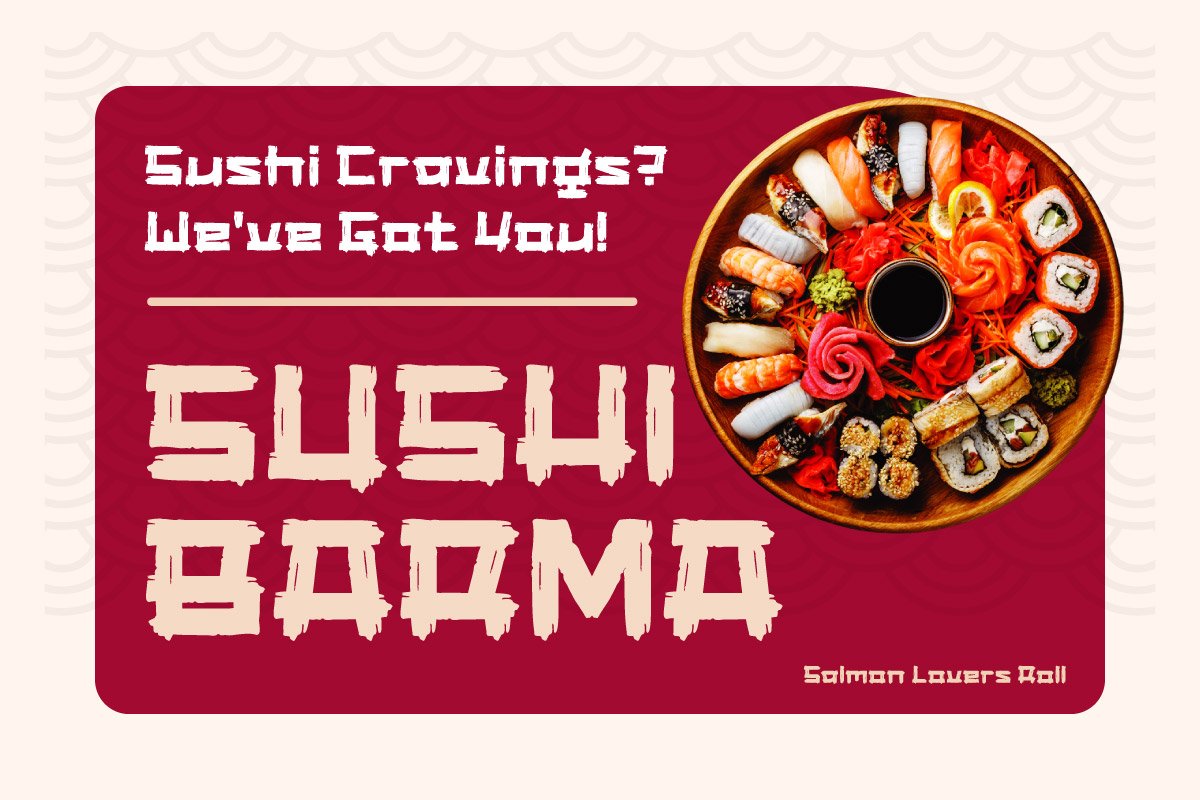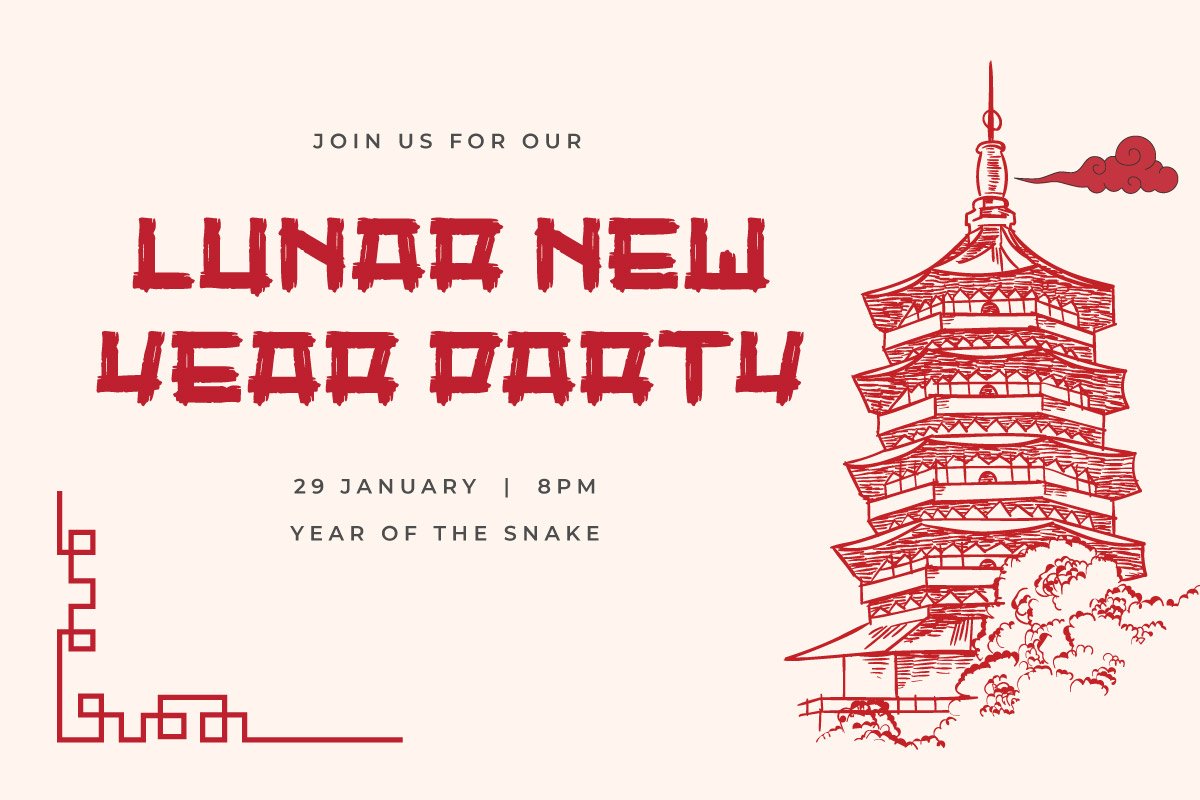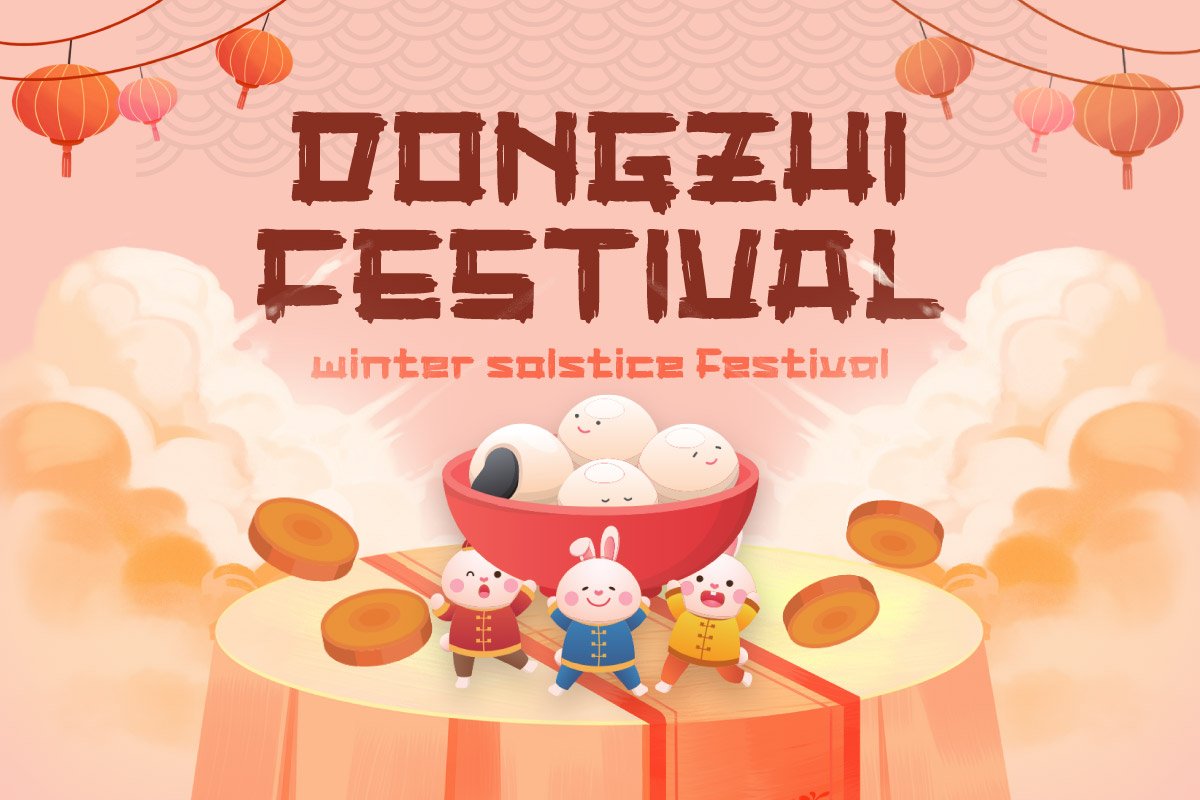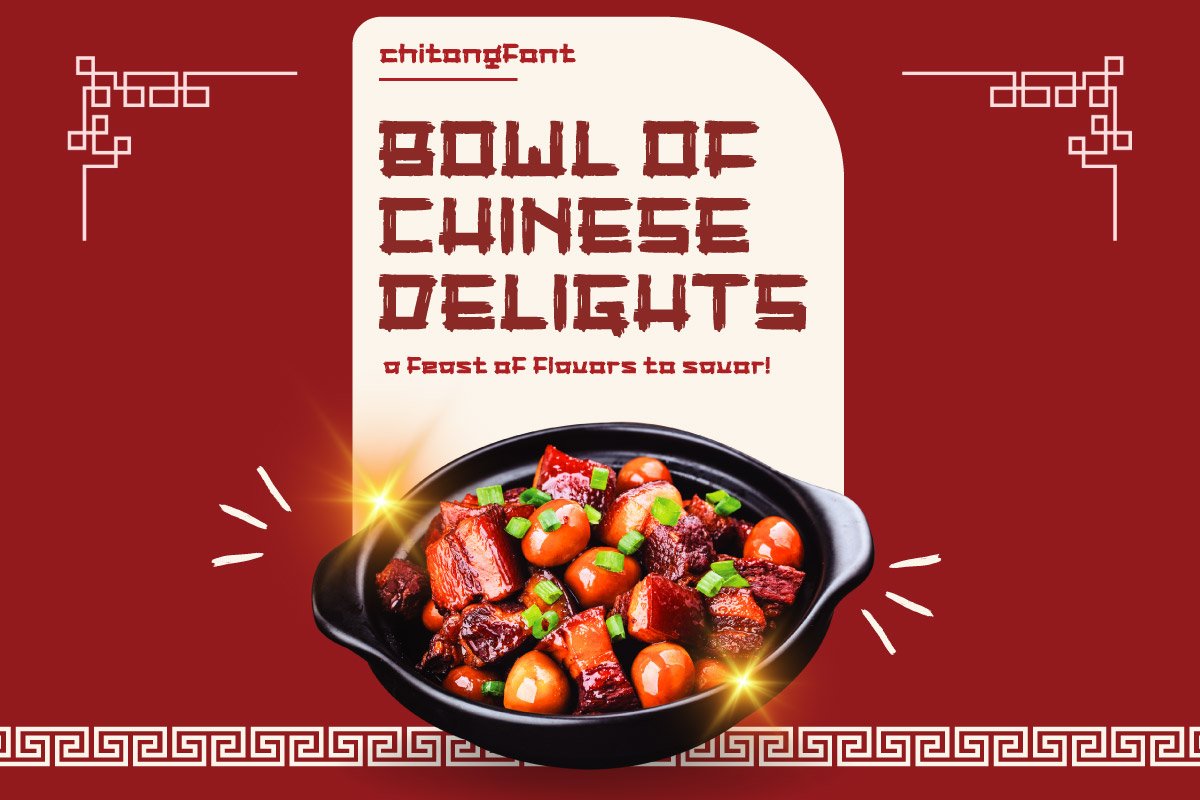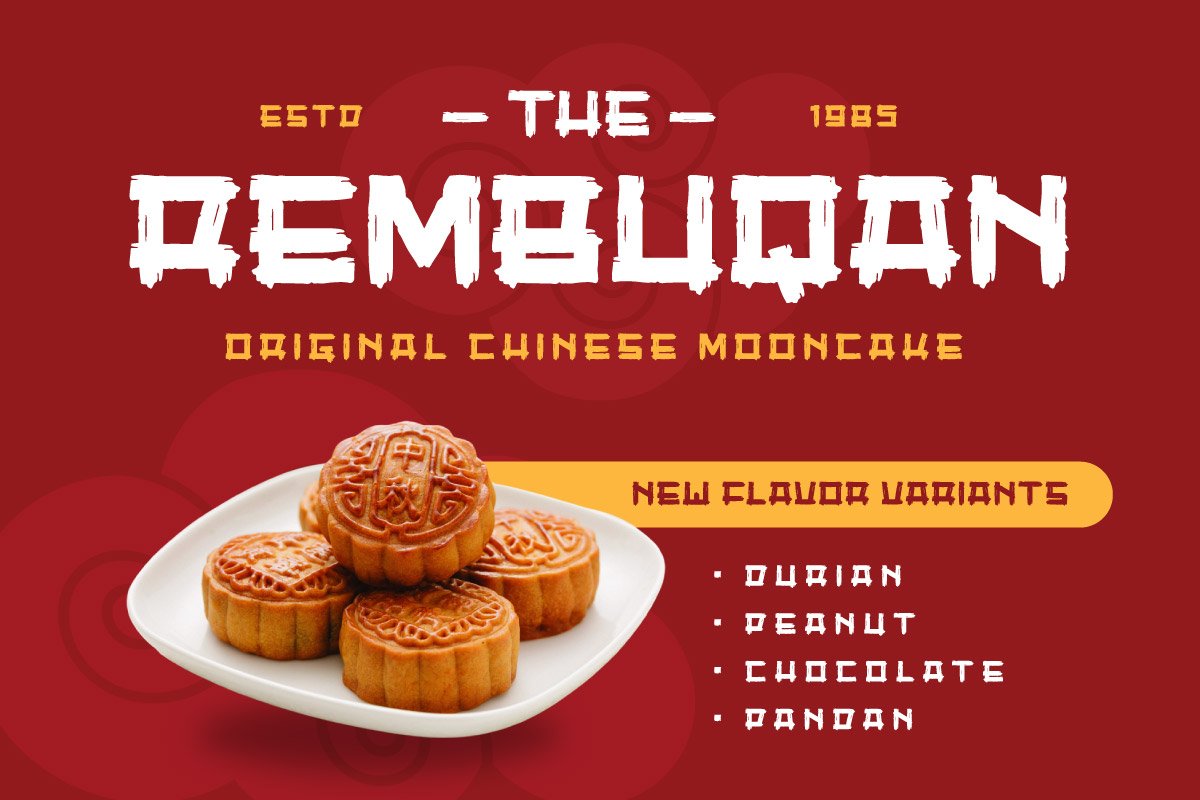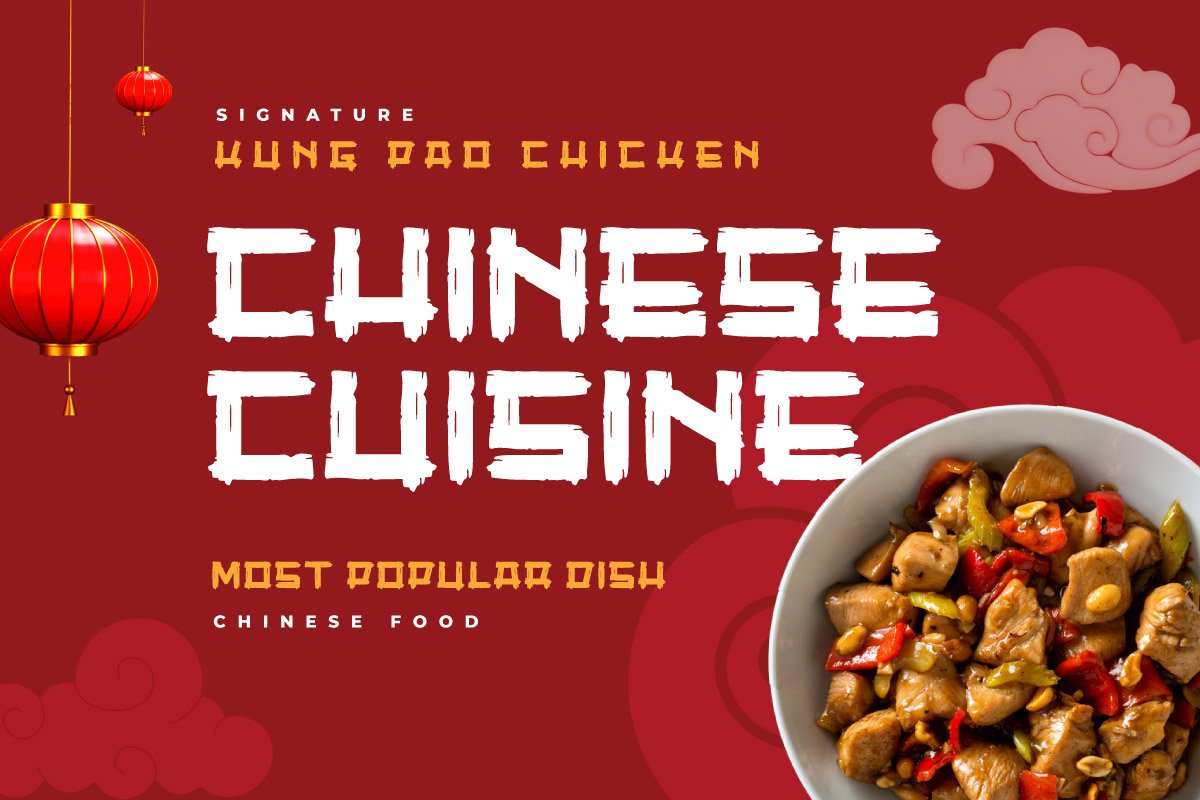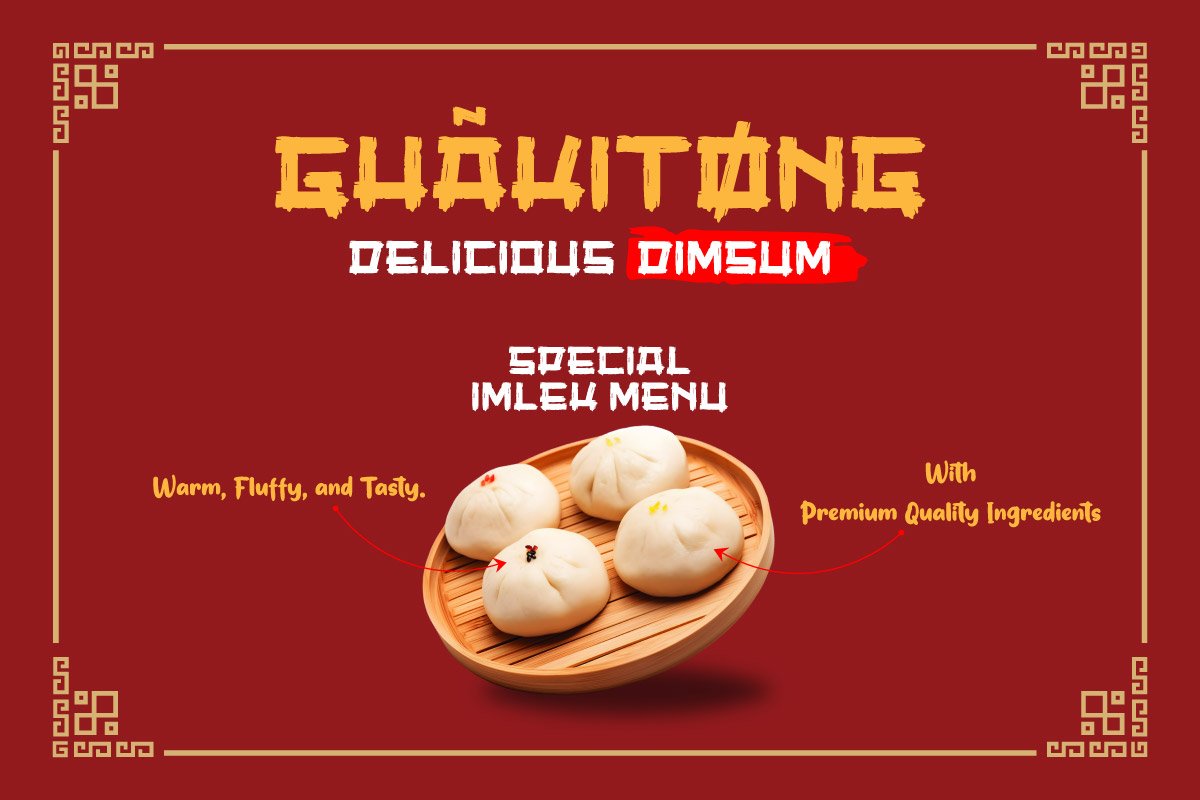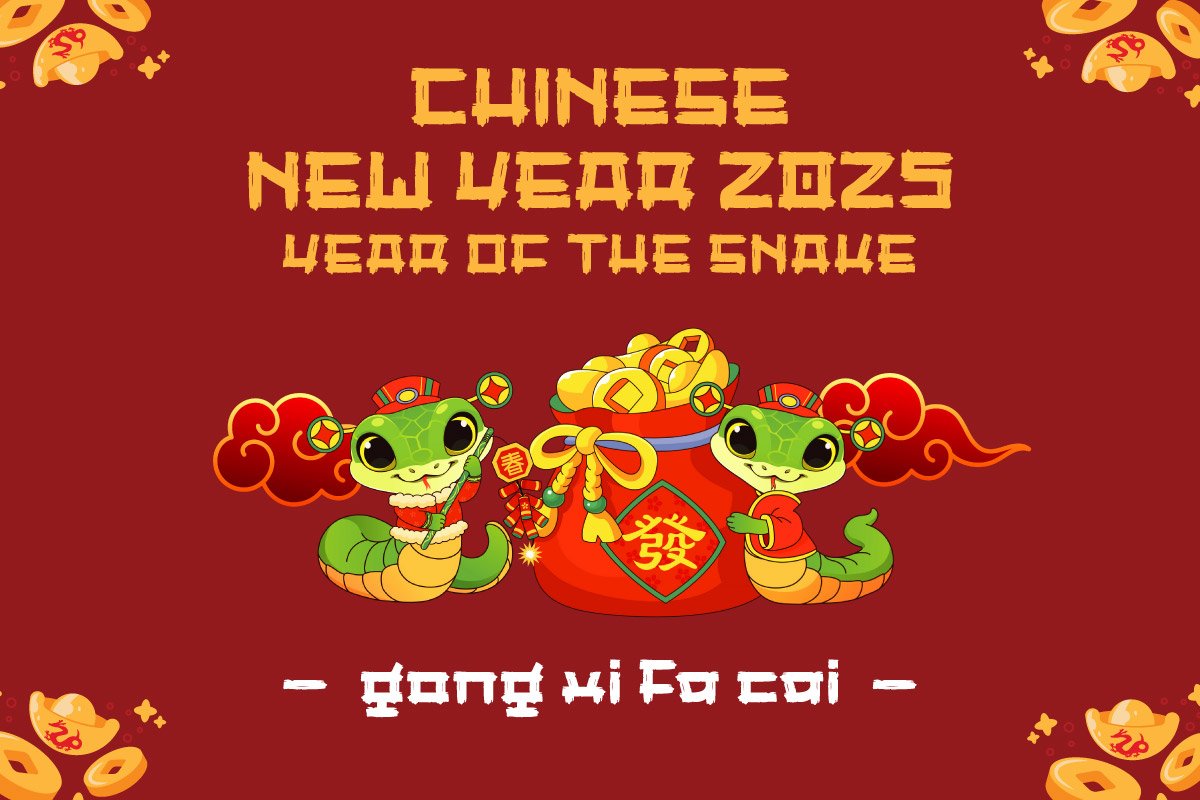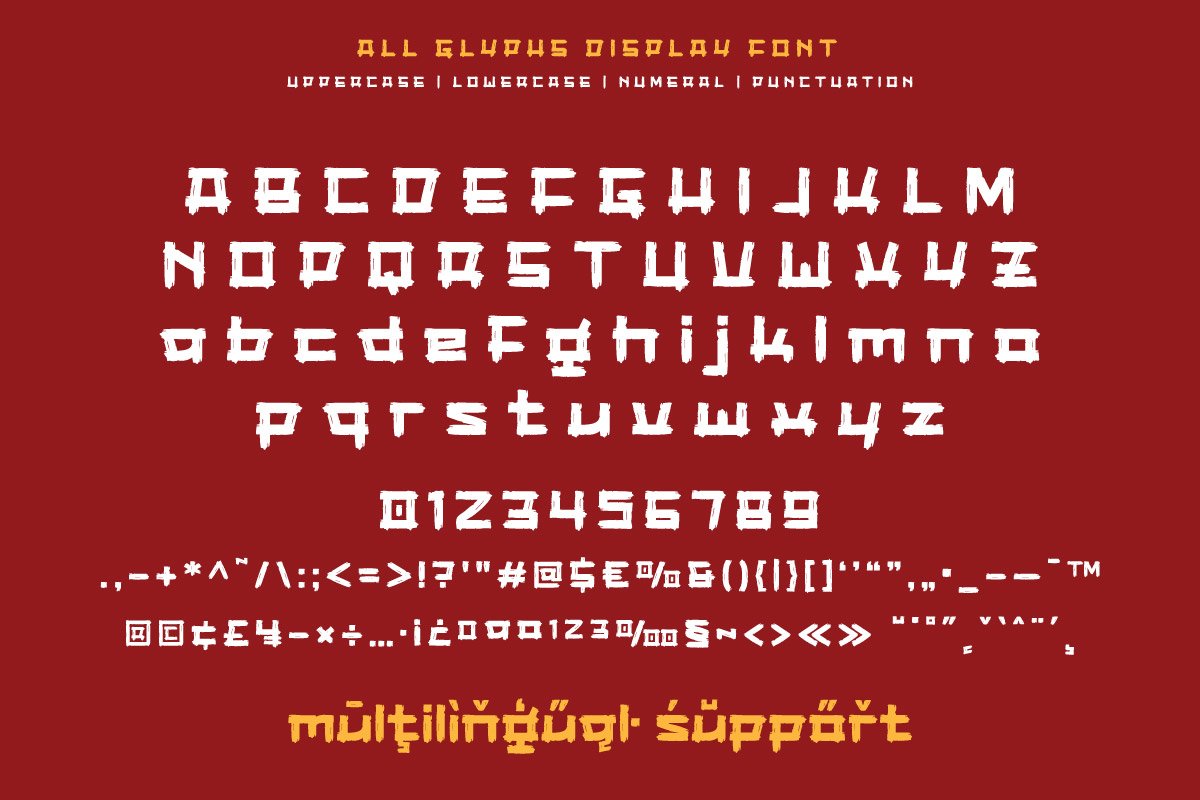
Chitong – Chinese Food Font
Bring the charm of oriental culture to your designs with Chitong – Chinese Food Font! This unique font blends traditional Chinese aesthetics with dynamic brush strokes, creating an authentic and captivating look. Perfect for various creative projects such as Asian restaurant menus, food branding, promotional posters, and video marketing.
With its bold and elegant character details, Chitong is designed to grab attention and add a professional touch to any project. Ideal for graphic designers, freelancers, videographers, art directors, and marketers looking to highlight exotic and sophisticated elements. Don’t miss the chance to elevate your visual appeal with this font that brings your work to life!